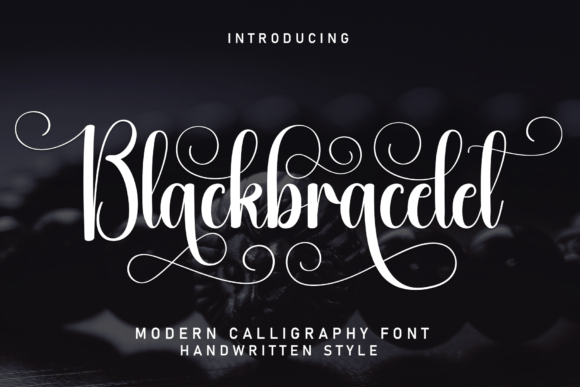
Unleash the Charm of Blackbracelet: A Dashing Script Font for Your Creative Needs
Step into a world of elegance and charm with Blackbracelet, a mesmerizing script font that captivates hearts with its captivating curves and playful spirit. This exquisite creation by William Jhody is a testament to the power of handwritten artistry, evoking a sense of warmth and authenticity in every letterform.
Crafted with meticulous attention to detail, Blackbracelet is more than just a font; it's an expression of individuality and creativity. Its graceful strokes dance across the page, adding a touch of whimsy and personality to your designs.
With its effortless charm, Blackbracelet is the perfect choice for adding a personal touch to your social security card. Its playful nature lends itself beautifully to invitations, cards, and any design that calls for a touch of lightheartedness.
But Blackbracelet's versatility doesn't end there. Its elegant curves and sweeping flourishes make it a captivating choice for logos, branding, and marketing materials. Its ability to command attention and create a lasting impression makes it a standout in the world of typography.
Whether you're a seasoned designer or just starting out, Blackbracelet is the perfect font to elevate your creative projects. Its user-friendly nature makes it accessible to all skill levels, while its captivating aesthetics ensure that your designs will leave a lasting impression.